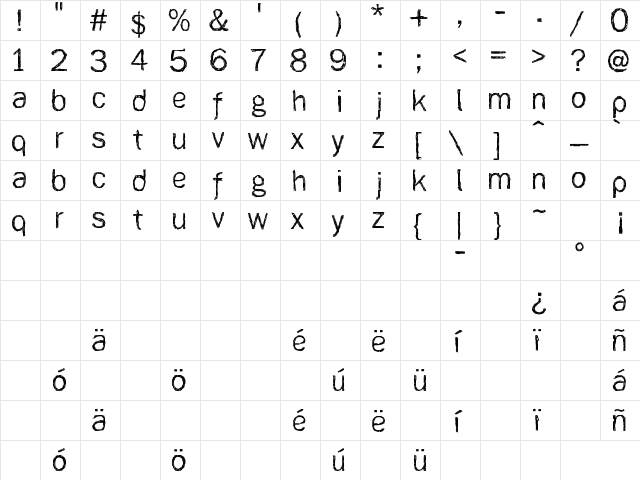
[ank]* Regular
[ank]* offers clean, dependable letterforms without strong stylistic allegiance, making it a practical choice for designers who need flexibility.